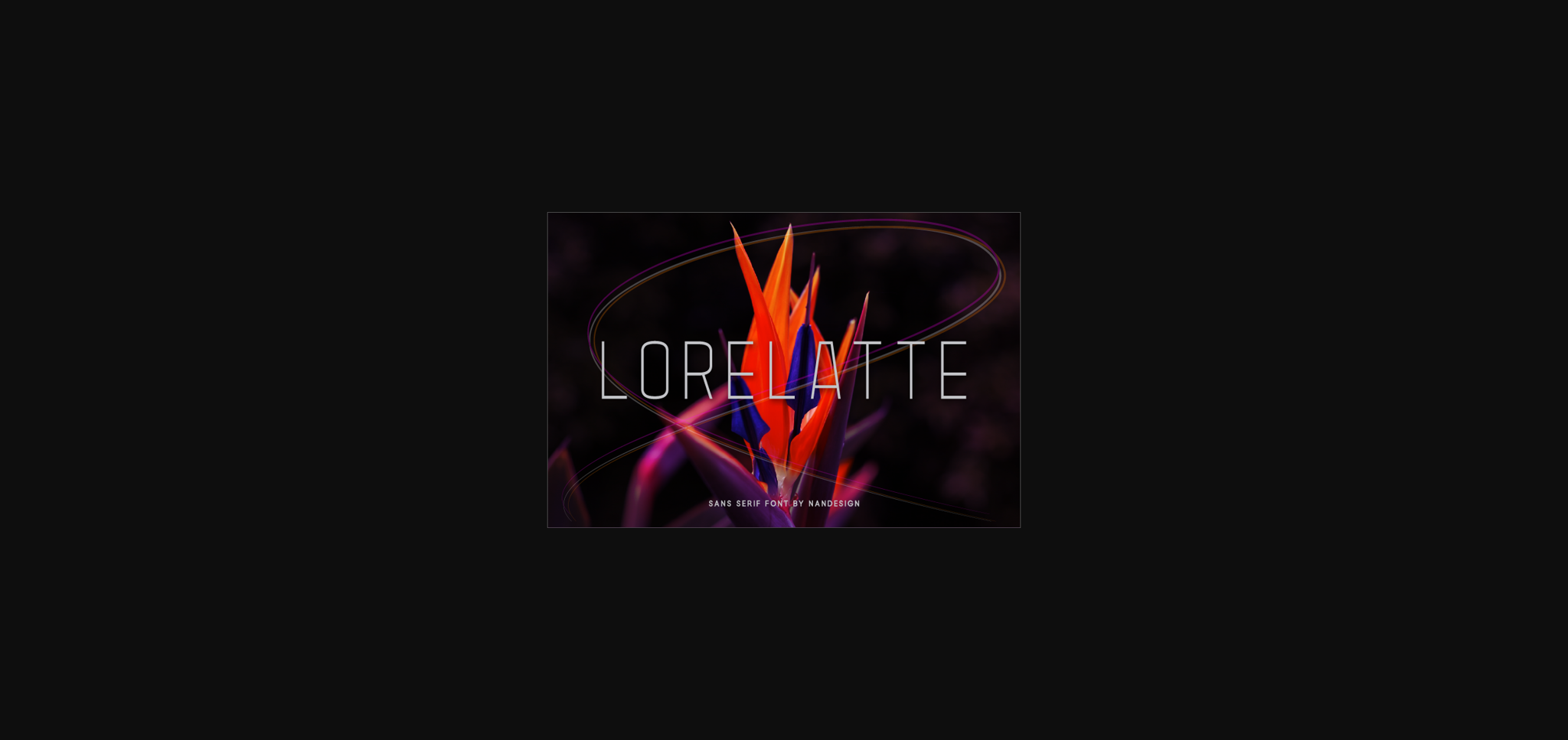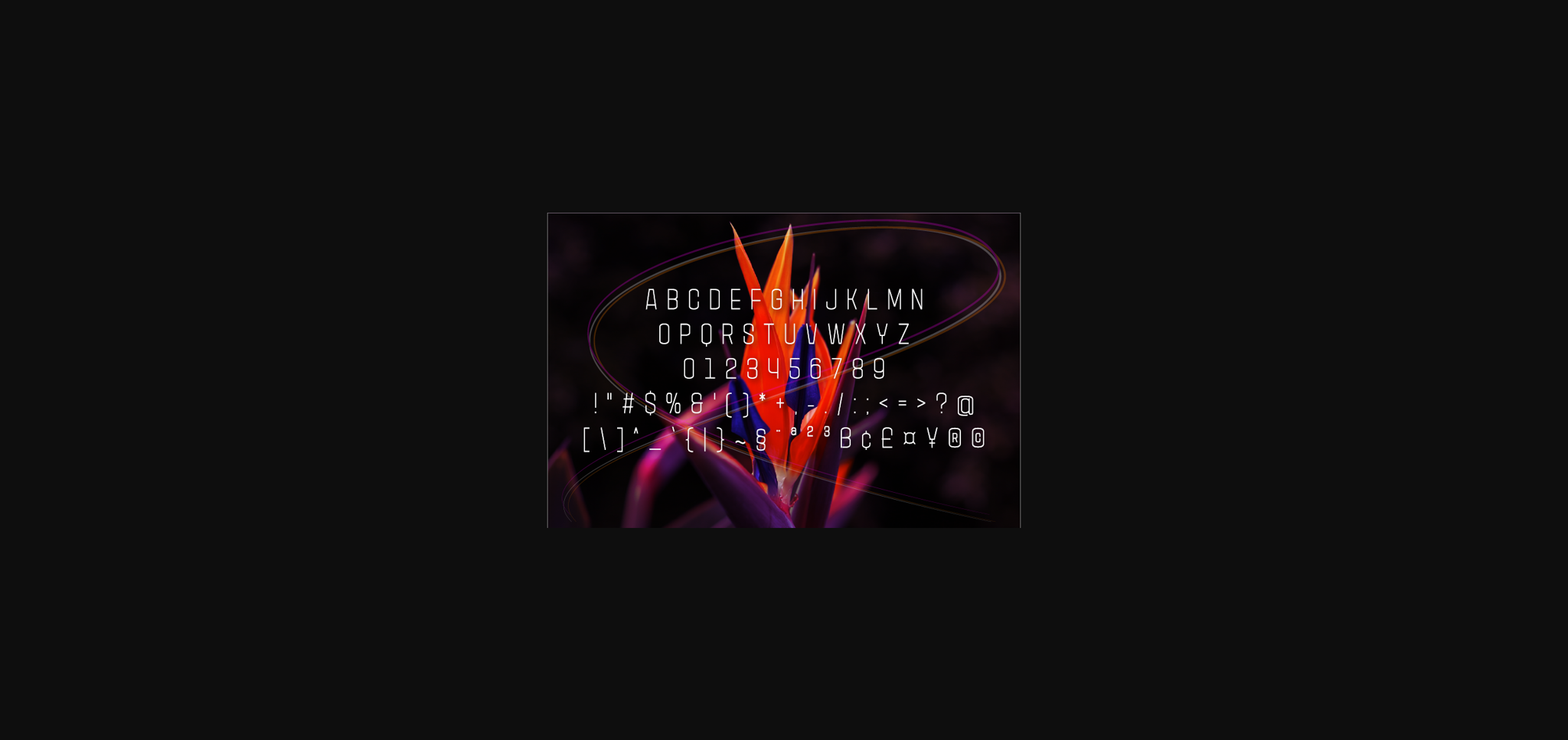
About Lorelatte Font
Lorelatte is a bold, yet incredibly elegant sans serif font. Use it to achieve an exquisite, yet subtle look and maximum versatility on your creative ideas!